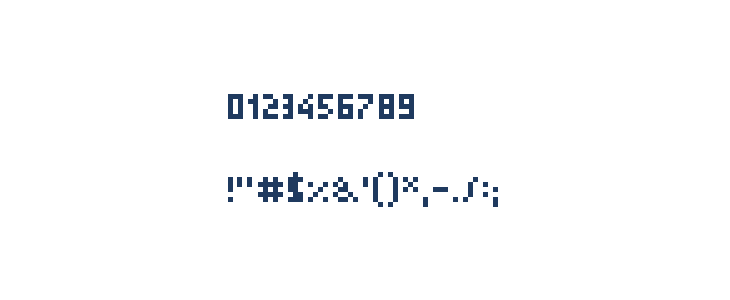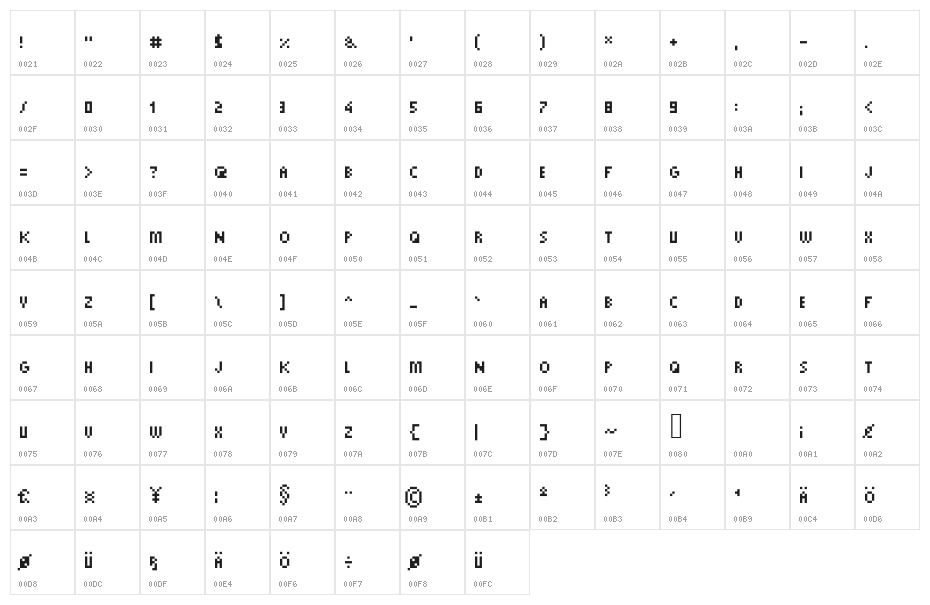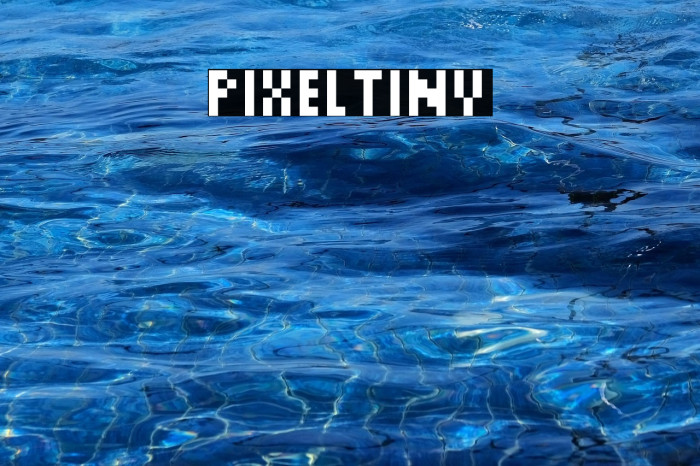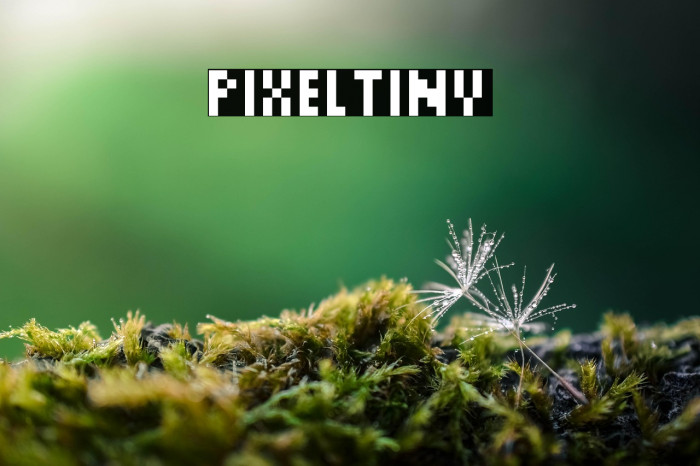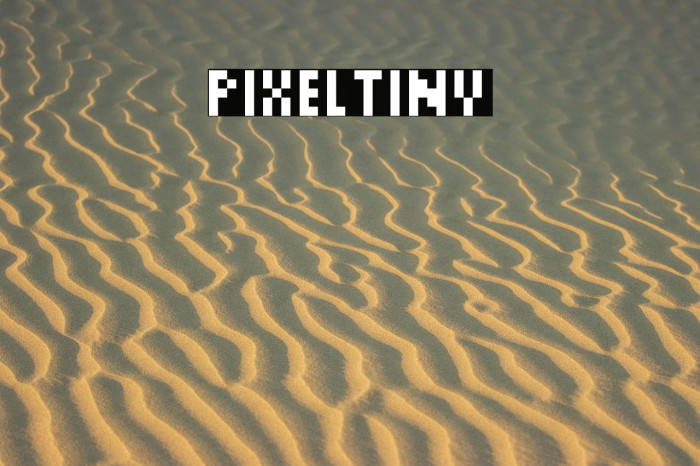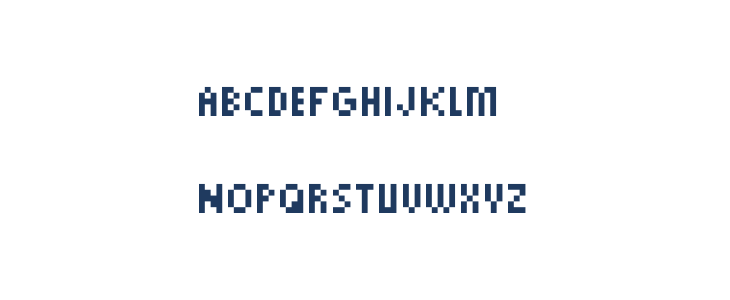
PixelTiny Font
PixelTiny Description
This font embodies a retro, pixelated style reminiscent of early digital displays and classic video games. Each character is constructed with a grid-like precision, creating a blocky, geometric appearance. The uppercase and lowercase letters maintain a consistent height, contributing to a uniform look. Numbers and special characters are similarly designed, ensuring visual cohesion across all elements. The font's simplicity and clarity make it ideal for digital interfaces where readability is key. Its nostalgic aesthetic appeals to projects aiming to evoke a sense of vintage digital charm.
| Overall Style | Vintage |
| Proposed Projects | Ideal for video game design, retro-themed websites, digital art, and tech-related branding. |